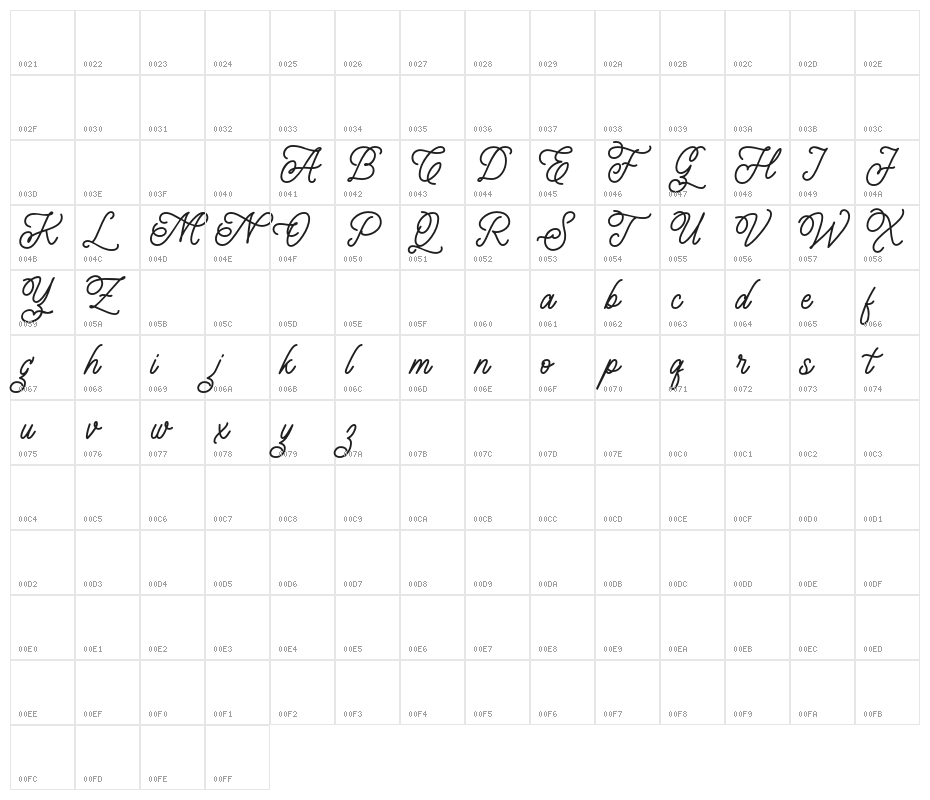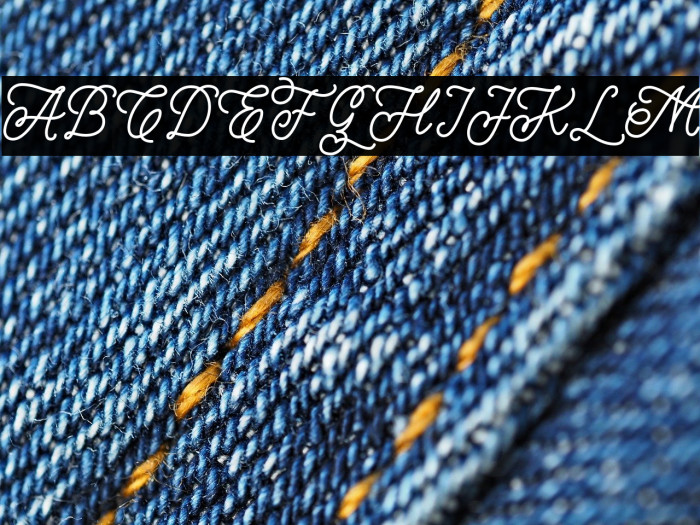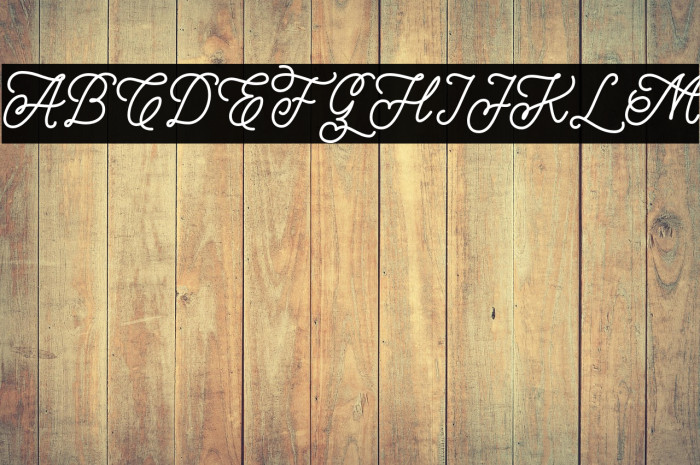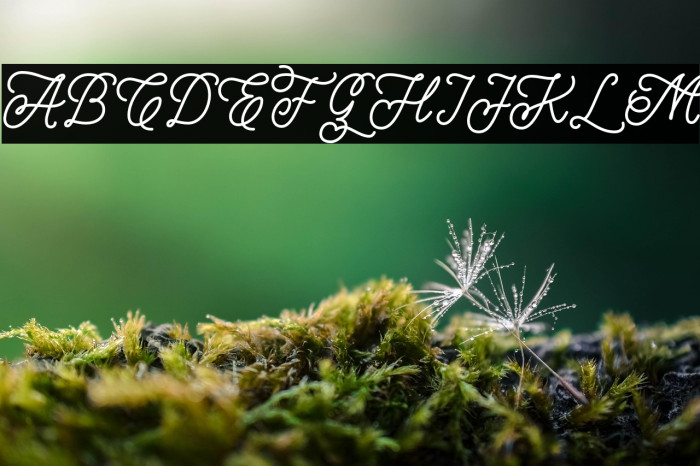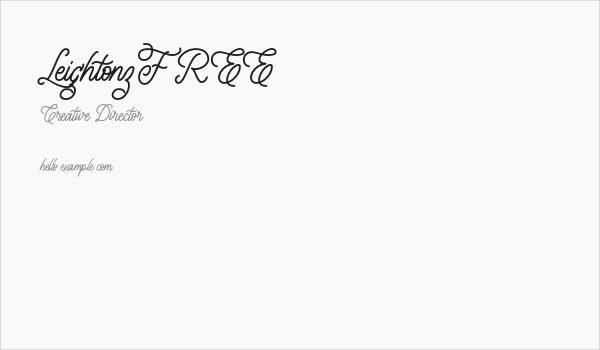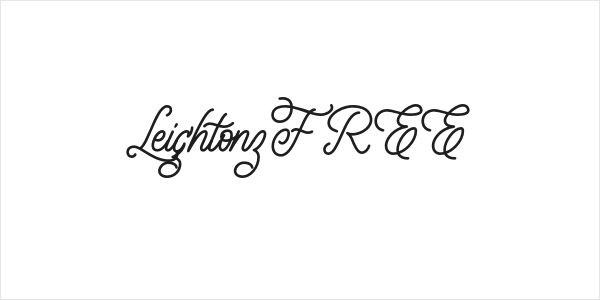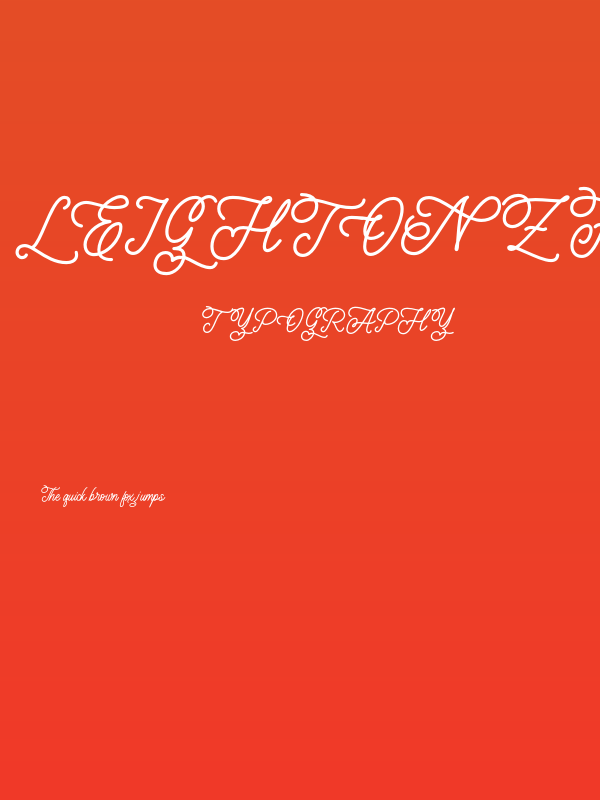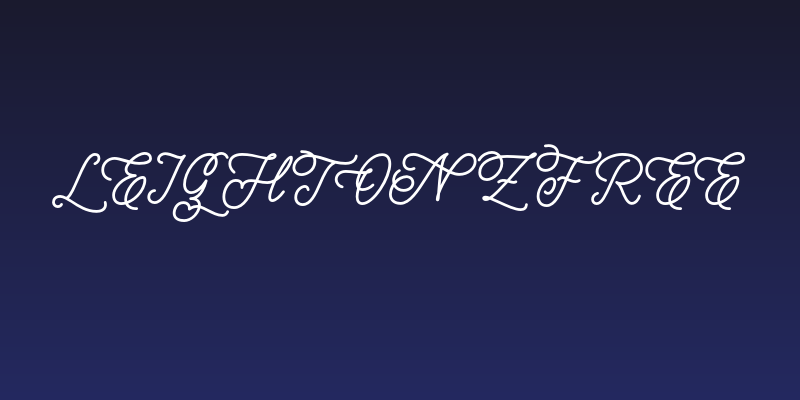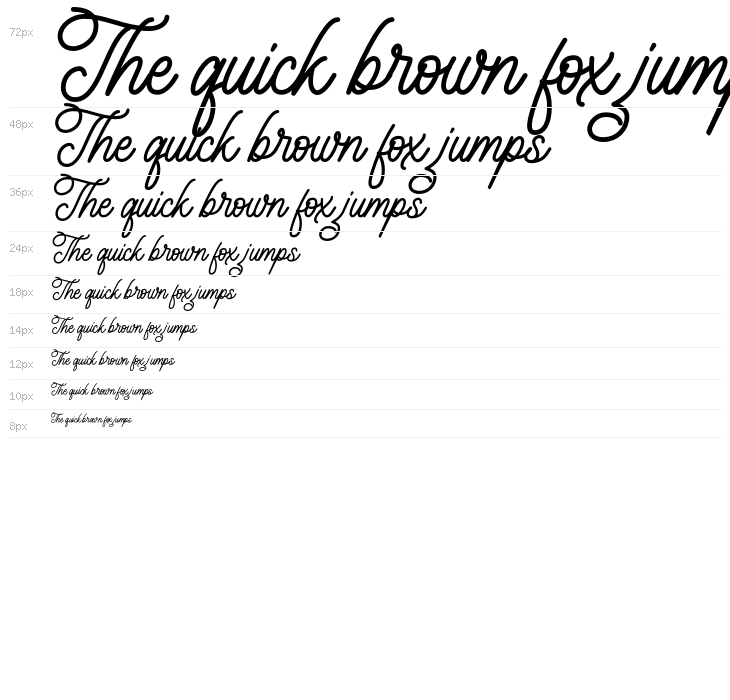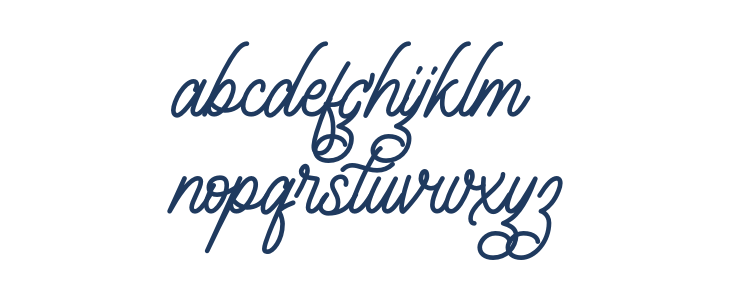
LeightonzFREE Font
LeightonzFREE Description
This font features an elegant and flowing script style, characterized by its cursive and interconnected letterforms. The uppercase letters exhibit a sophisticated flair with decorative loops and swashes, while the lowercase letters maintain a smooth and consistent flow. The font's design is reminiscent of traditional calligraphy, offering a sense of grace and refinement. It is well-suited for projects that require a touch of elegance and sophistication, such as wedding invitations, formal event programs, and upscale branding materials. The overall appearance is both classic and timeless, making it versatile for various design applications.
Overall StyleClassic
Use CaseHeadlines, Invitations, Branding
Proposed ProjectsIdeal for wedding invitations, formal event programs, and upscale branding materials.